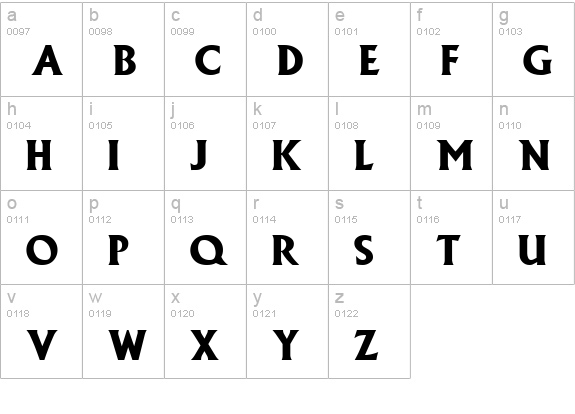
Alexander Regular Font Details
Alexander Regular is the standard, neutral variant in the Alexander typeface family \xE2\x80\x94 well suited to general body text, paragraphs, and standard typographic work.
Alexander Regular font is a timeless and versatile typeface that combines classic elegance with modern simplicity. With its clean lines and balanced proportions, this font exudes a sense of sophistication and professionalism. Perfect for a wide range of design projects, from branding and packaging to editorial and web design, Alexander Regular offers a clean and contemporary aesthetic that is sure to elevate any project. What's even better is that Alexander Regular font is available for free download at FontsMarket.com, making it easily accessible to designers looking to add a touch of refinement to their creations. Don't miss out on the opportunity to incorporate this stylish and sophisticated font into your next design project. Download Alexander Regular today and discover the endless possibilities it offers for your creative endeavors.